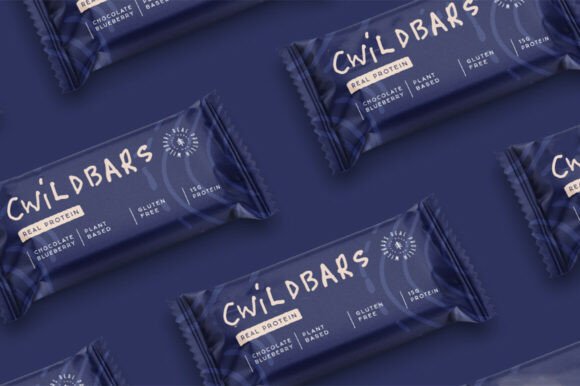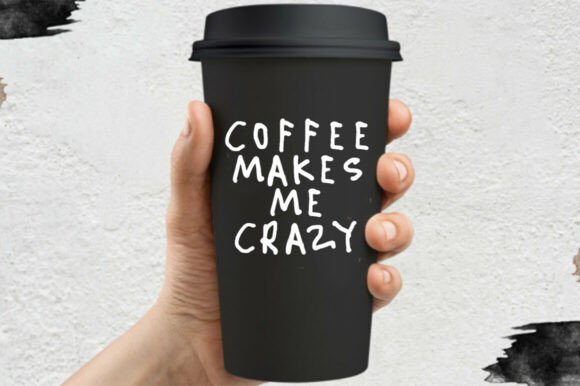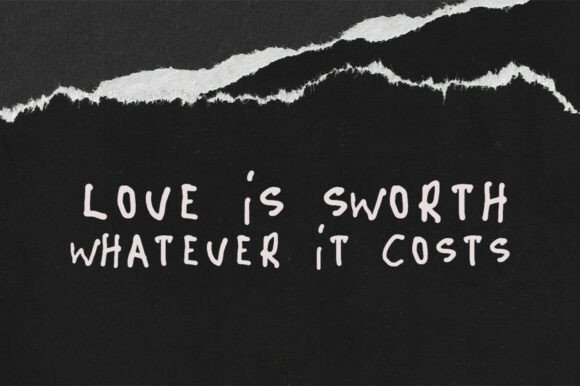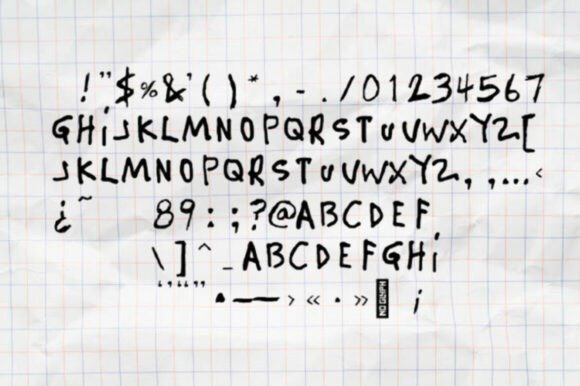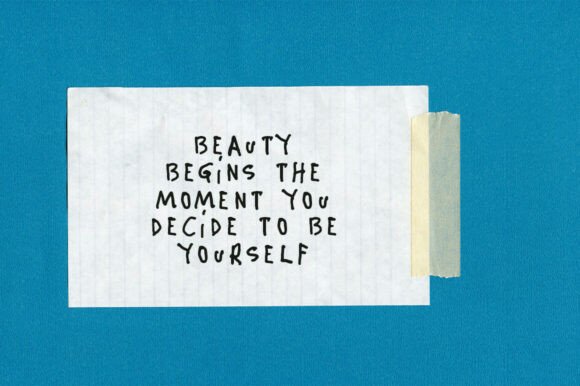
Cexsons Font: A Handmade Masterpiece for Designers and Crafters
In the world of typography, few fonts manage to capture the essence of handmade charm. Cexsons Font is one such gem that stands out from the crowd, boasting a unique, hand-crafted aesthetic that is sure to delight designers and crafters alike. Imagine the bold strokes of a thick marker, wielded with a touch of playful abandon, and you’re close to understanding the magic of Cexsons.
The Making of Cexsons: A Labor of Love
Cexsons Font is a testament to the beauty of human imperfection. Each letter possesses a unique, slightly irregular charm, hinting at the human hand that brought it to life. The font’s creator poured their heart and soul into crafting a typeface that would exude warmth, personality, and a sense of playfulness. The result is a font that feels approachable, friendly, and authentic.
Key Characteristics of Cexsons Font
So, what makes Cexsons Font so special? Here are some of its key characteristics:
- Handmade aesthetic: Cexsons boasts a distinctly handmade look, with each letter bearing the imperfections and quirks of a human creator.
- Bold strokes: The font features bold, expressive strokes that evoke the feeling of a thick marker in action.
- Playful abandon: Cexsons has a carefree, playful quality that makes it perfect for designs that require a touch of whimsy.
- Unique character: Each letter in the Cexsons Font has its own distinct personality, ensuring that your designs stand out from the crowd.
Why Designers and Crafters Love Cexsons Font
Cexsons Font has quickly become a favorite among designers and crafters, and for good reason. Here are just a few reasons why:
- Emotional connection: Cexsons Font helps create an emotional connection with your audience, conveying a sense of warmth and approachability.
- Versatility: The font’s bold, playful aesthetic makes it suitable for a wide range of design projects, from branding and advertising to crafting and DIY tutorials.
- Easy to read: Despite its handmade nature, Cexsons Font is surprisingly easy to read, making it perfect for body text and headings.
Using Cexsons Font in Your Designs
Ready to incorporate Cexsons Font into your designs? Here are some tips to get you started:
- Pair with complementary fonts: Combine Cexsons Font with cleaner, sans-serif fonts to create visual interest and contrast.
- Experiment with colors: Cexsons Font looks great in a variety of colors, from bold brights to muted earth tones.
- Don’t be afraid to get creative: Cexsons Font is all about embracing imperfection, so don’t be afraid to experiment and try new things.
Cexsons Font is a true gem in the world of typography, offering a unique blend of handmade charm, bold expressiveness, and playful personality. Whether you’re a designer, crafter, or simply someone who appreciates the beauty of handmade aesthetics, Cexsons Font is sure to capture your heart. So why not give it a try and see what amazing creations you can come up with?
Example Use Cases:
- Branding and advertising
- Crafting and DIY tutorials
- Packaging design
- Invitations and stationery
- Cexsons Font is a handmade font with a unique, irregular charm.
- The font features bold, expressive strokes and a playful aesthetic.
- Cexsons Font is perfect for designs that require a touch of whimsy and personality.